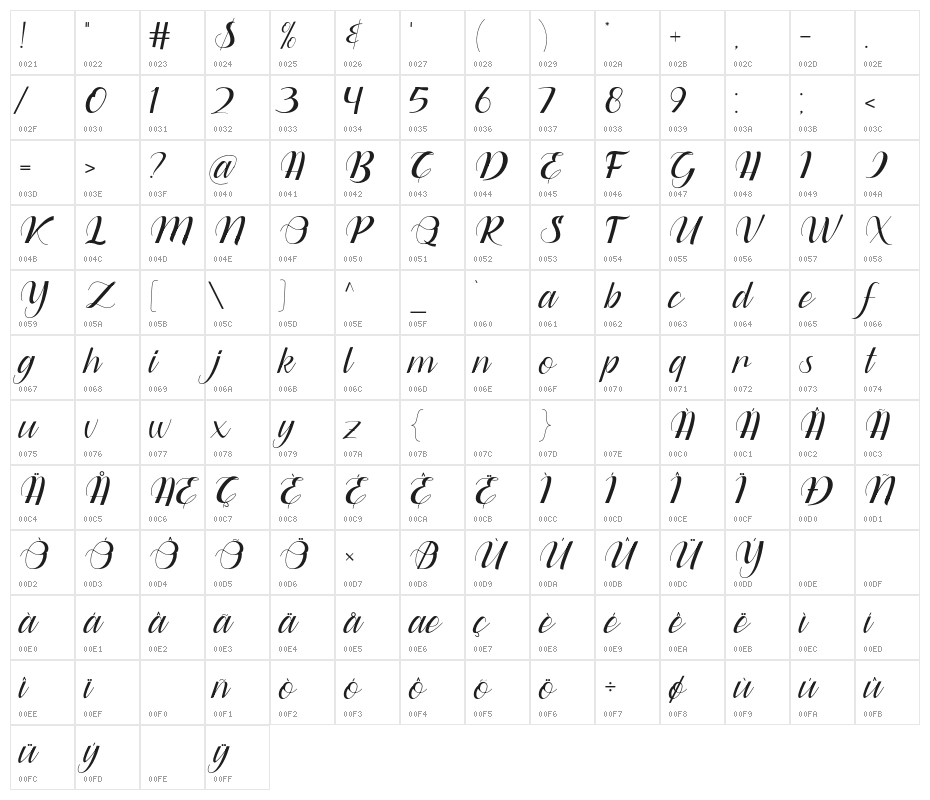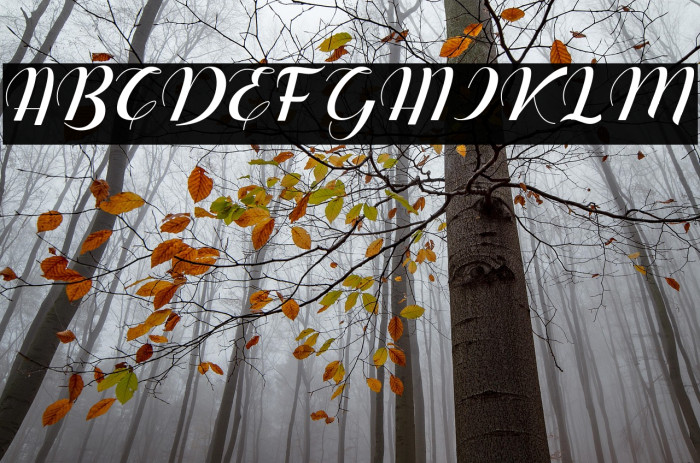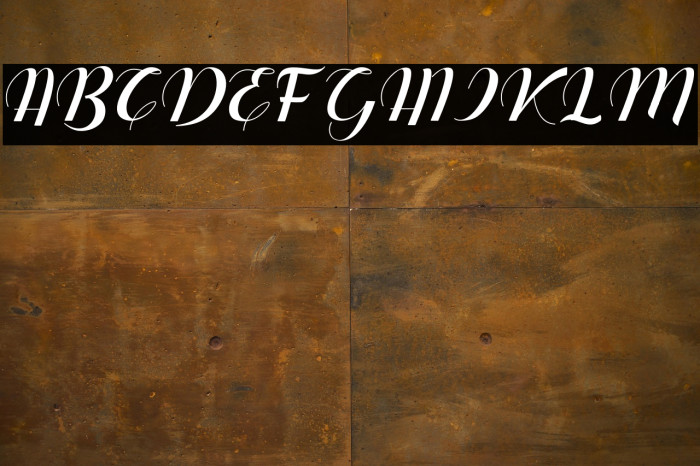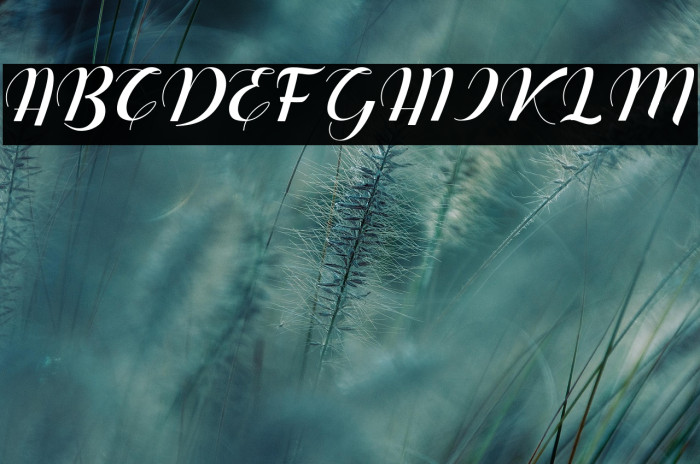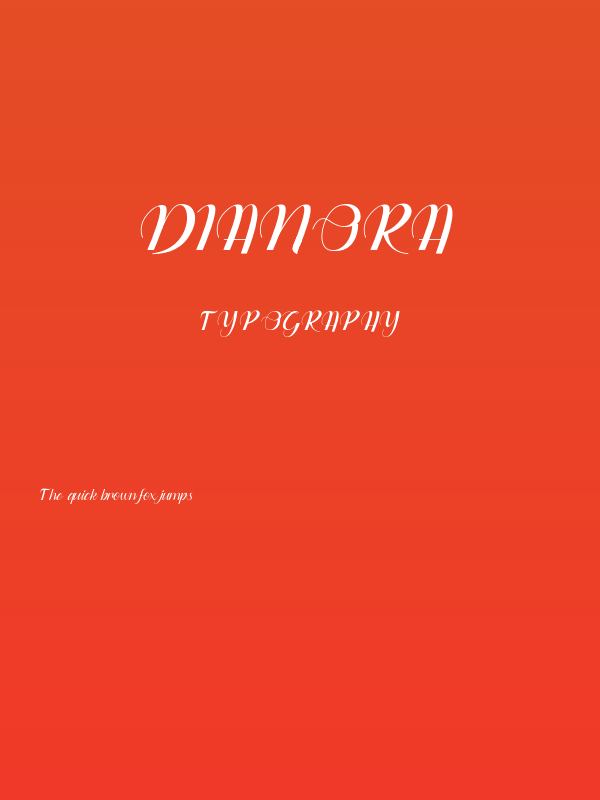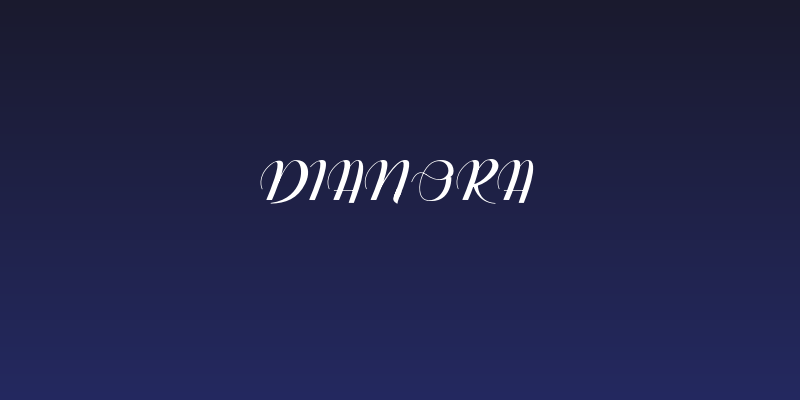
Dianora Font
Dianora Description
This font features an elegant and flowing script style, characterized by its smooth, cursive letterforms that convey a sense of sophistication and grace. The uppercase letters are distinct with their sweeping curves and flourishes, while the lowercase letters maintain a consistent fluidity, enhancing readability. The numerals are designed to complement the overall aesthetic, with a similar emphasis on curves and elegance. Special characters are thoughtfully integrated, maintaining the font's cohesive style. This font is ideal for projects that require a touch of elegance and refinement.
| Overall Style | Elegant, Sophisticated |
| Use Case | Headlines, Invitations, Branding |
| Proposed Projects | Ideal for wedding invitations, elegant branding, luxury product packaging, and sophisticated editorial design. |